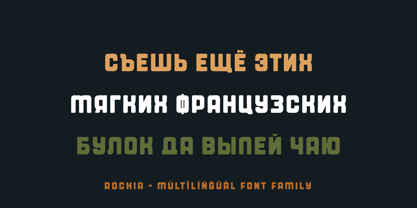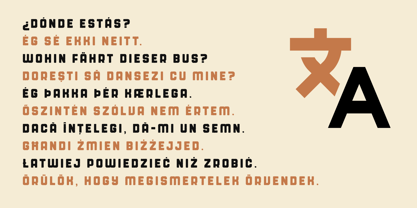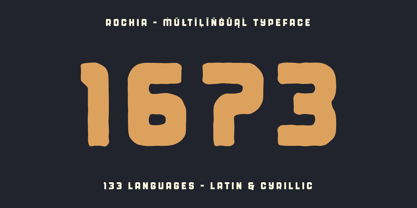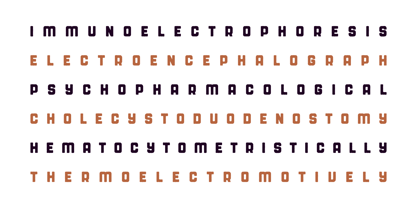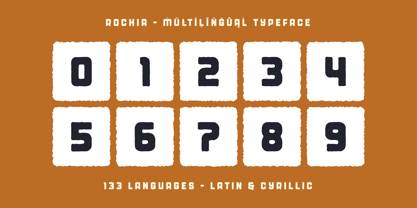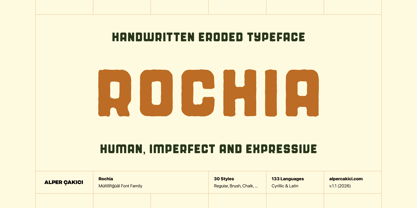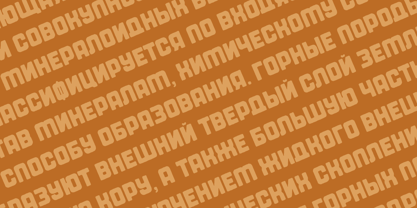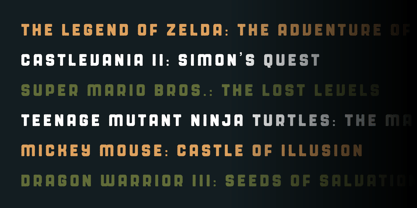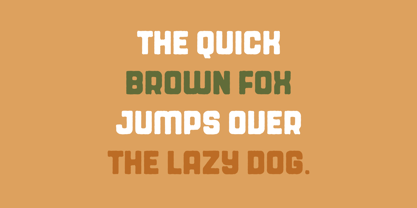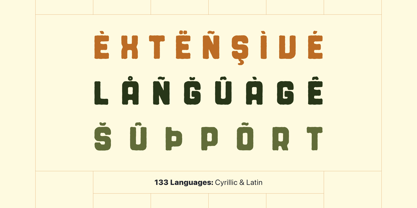
Rochia
The Rochia Font Family was designed by Alper Çakıcı and published by AlperCakici. Rochia contains 30 styles and family package options. More about this family
Rochia is an eroded bold sans serif typeface designed to deliver raw character and rugged personality. Built with a distressed aesthetic, it blends strong geometric structure with organic imperfections, making it ideal for designs that demand texture and authenticity. Featuring Cyrillic and Latin language support, Rochia is a versatile choice for international projects. Its worn and weathered appearance brings a handcrafted feel, perfect for branding, posters, apparel, packaging, and editorial layouts that need a bold, expressive voice. The family includes 30 carefully crafted styles, ranging from subtle aging to heavy grunge effects such as Aged, Brush, Chalk, Dry, Edgy, Grainy, Gritty, Hazy, Old, Pencil, Rough, Rusty, Sketchy, and Worn—each paired with matching italics for maximum flexibility. Whether you're creating vintage-inspired visuals or modern gritty compositions, Rochia offers a dynamic toolkit to push your typography further.